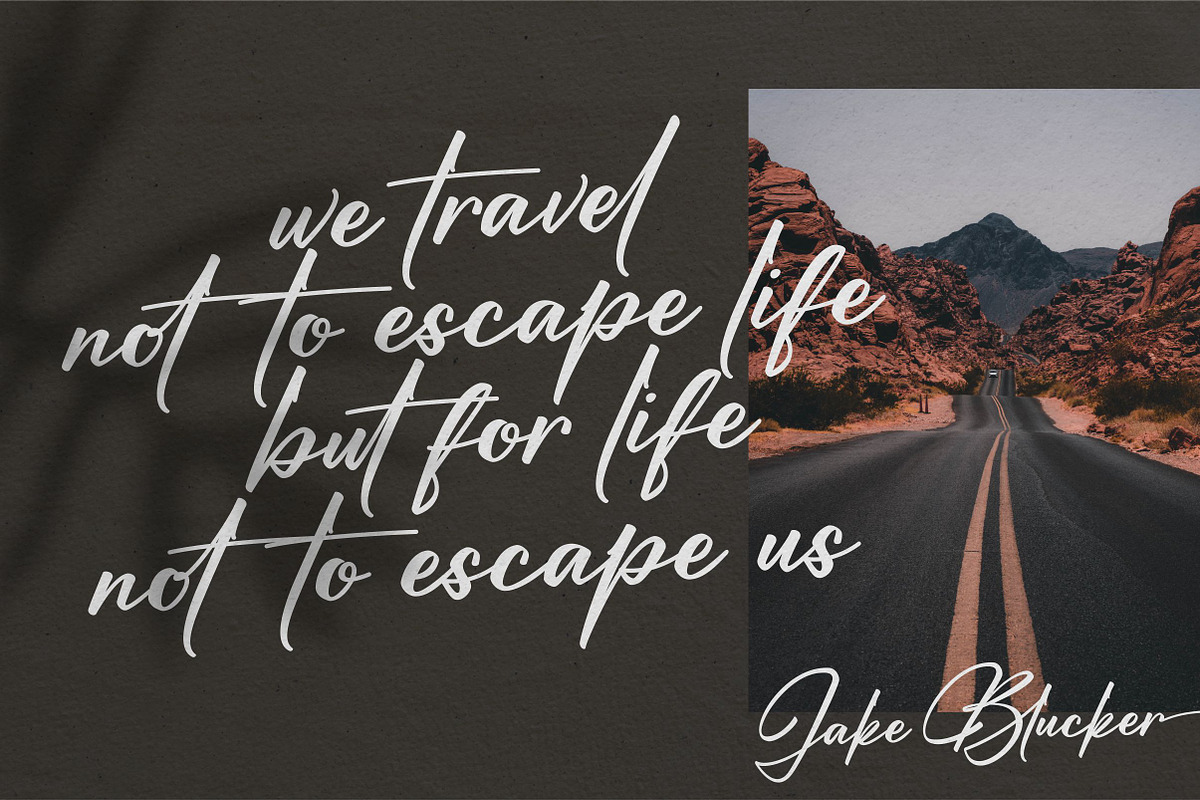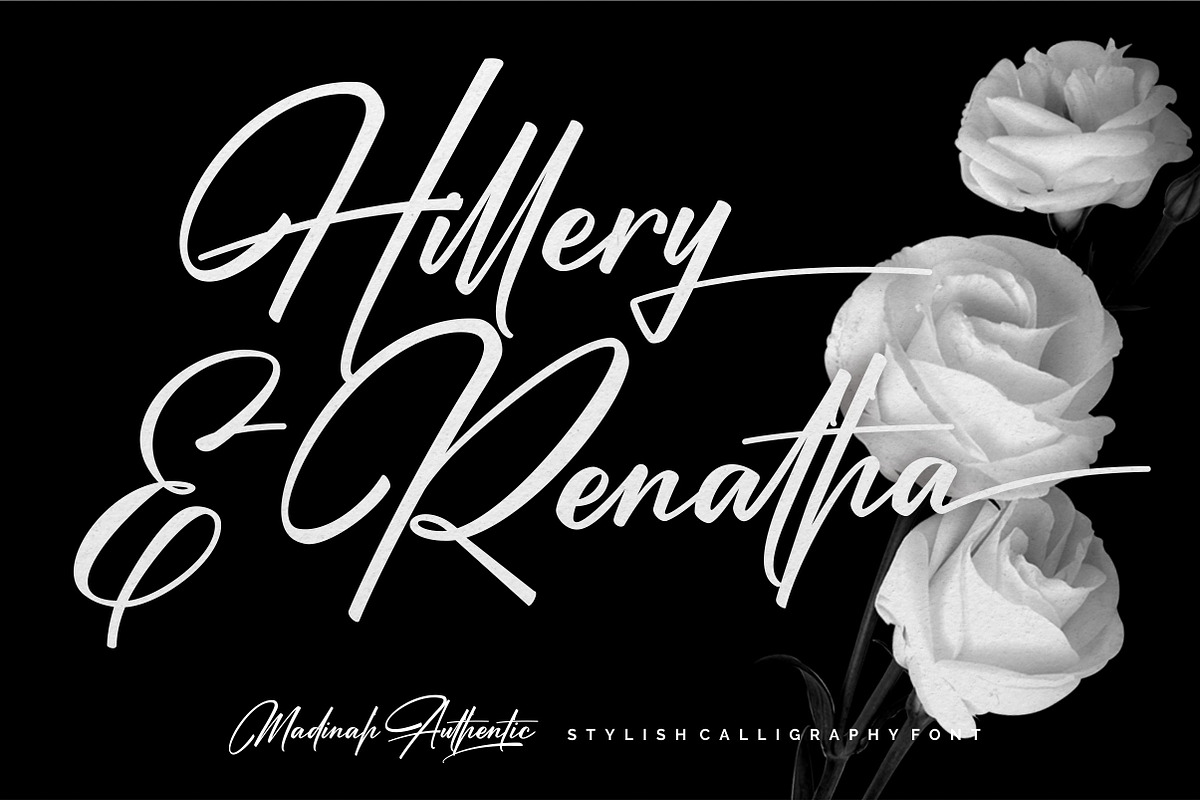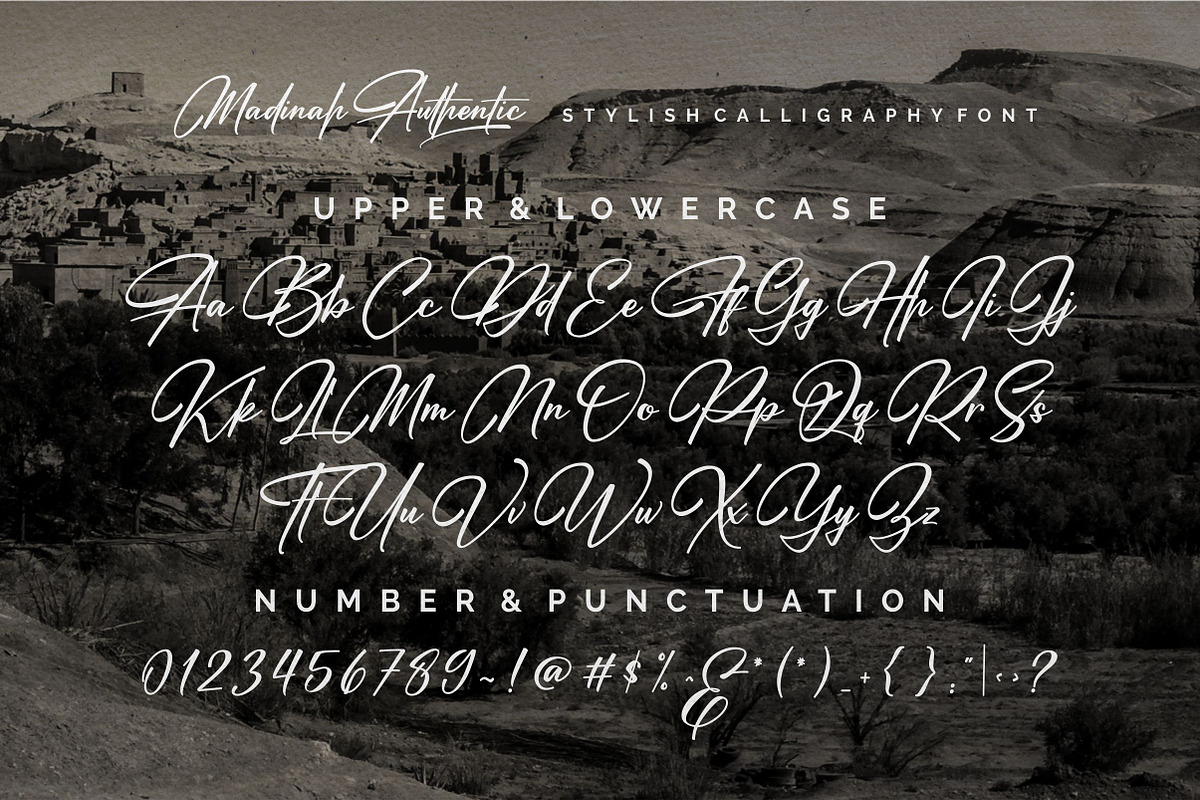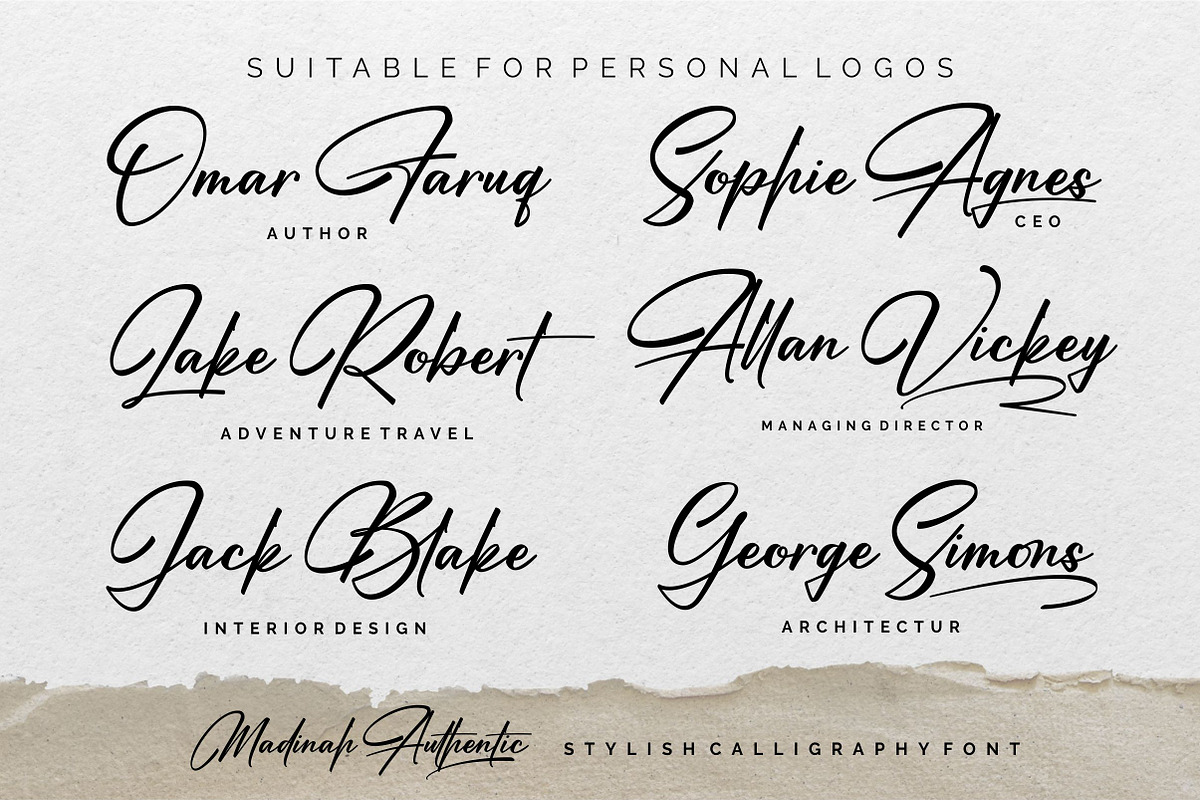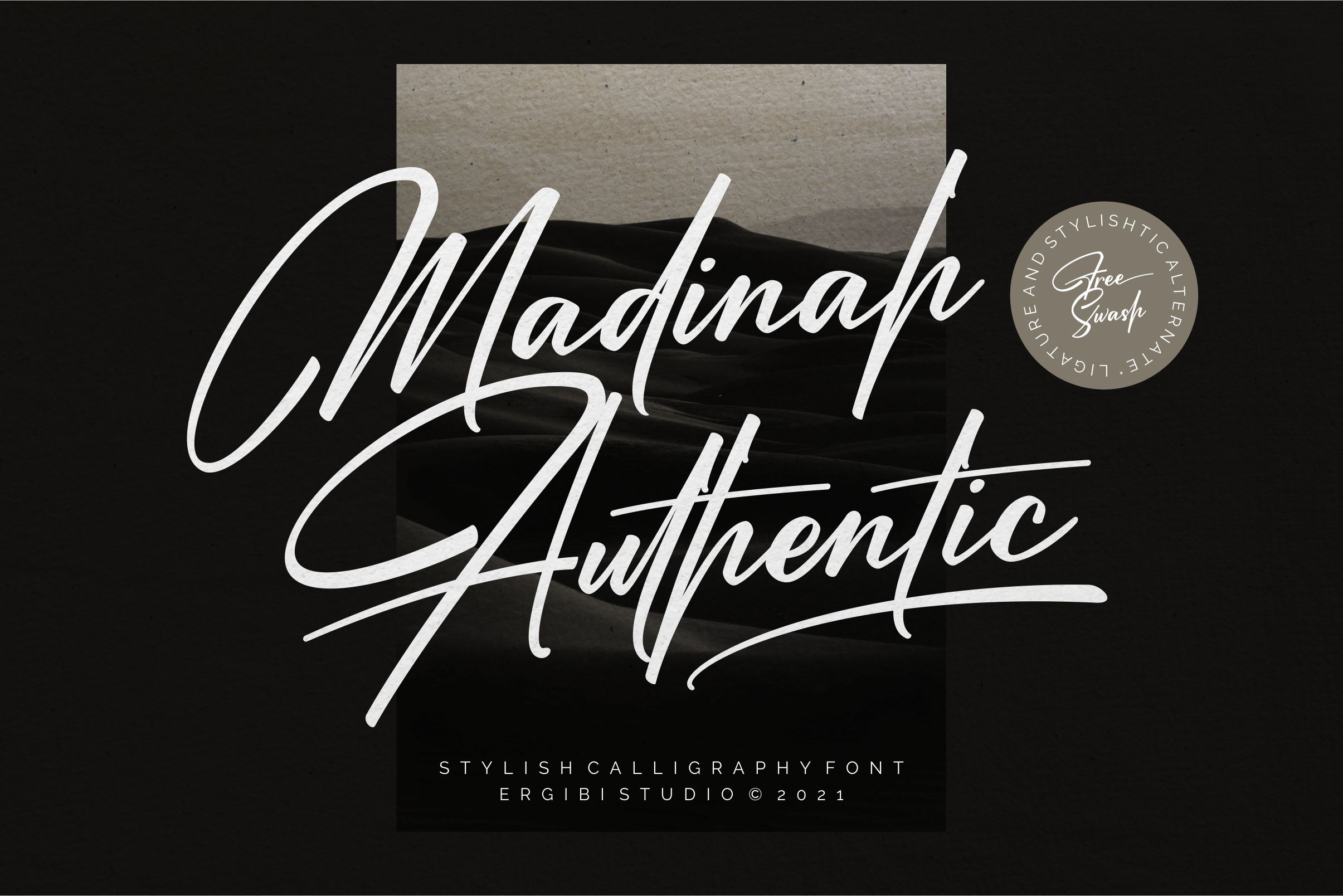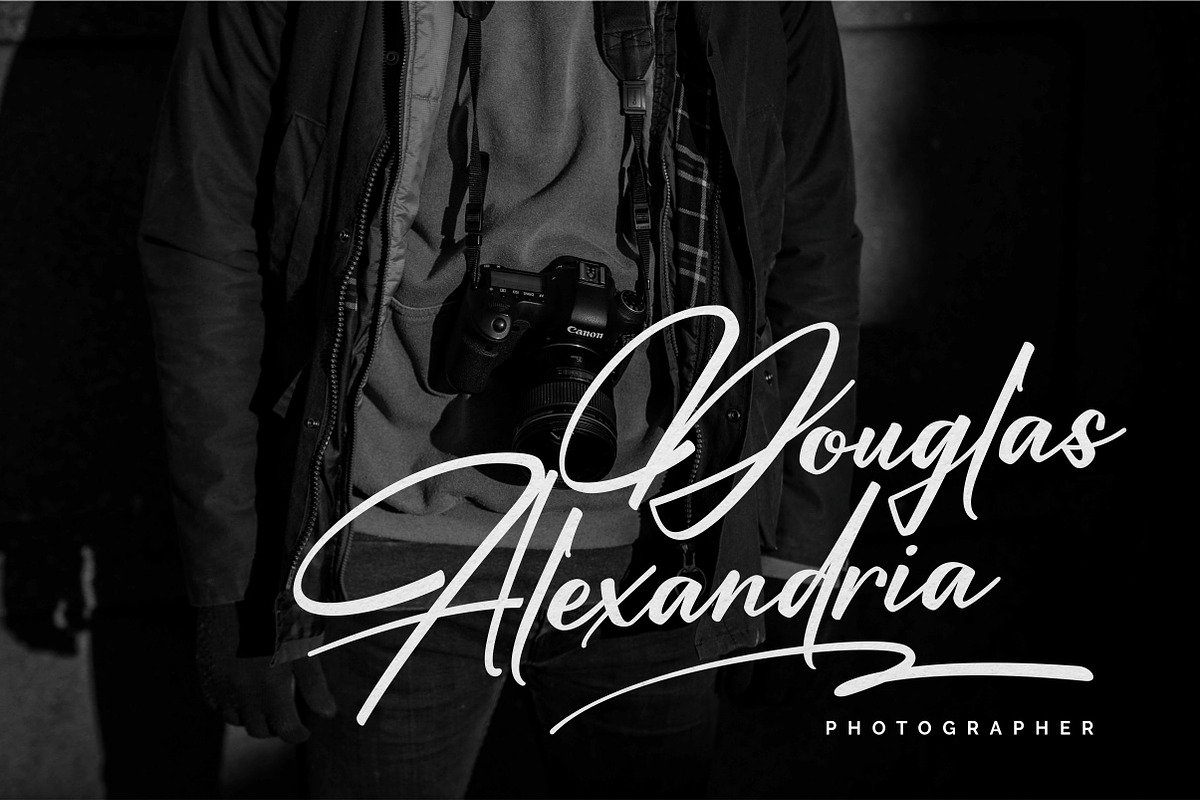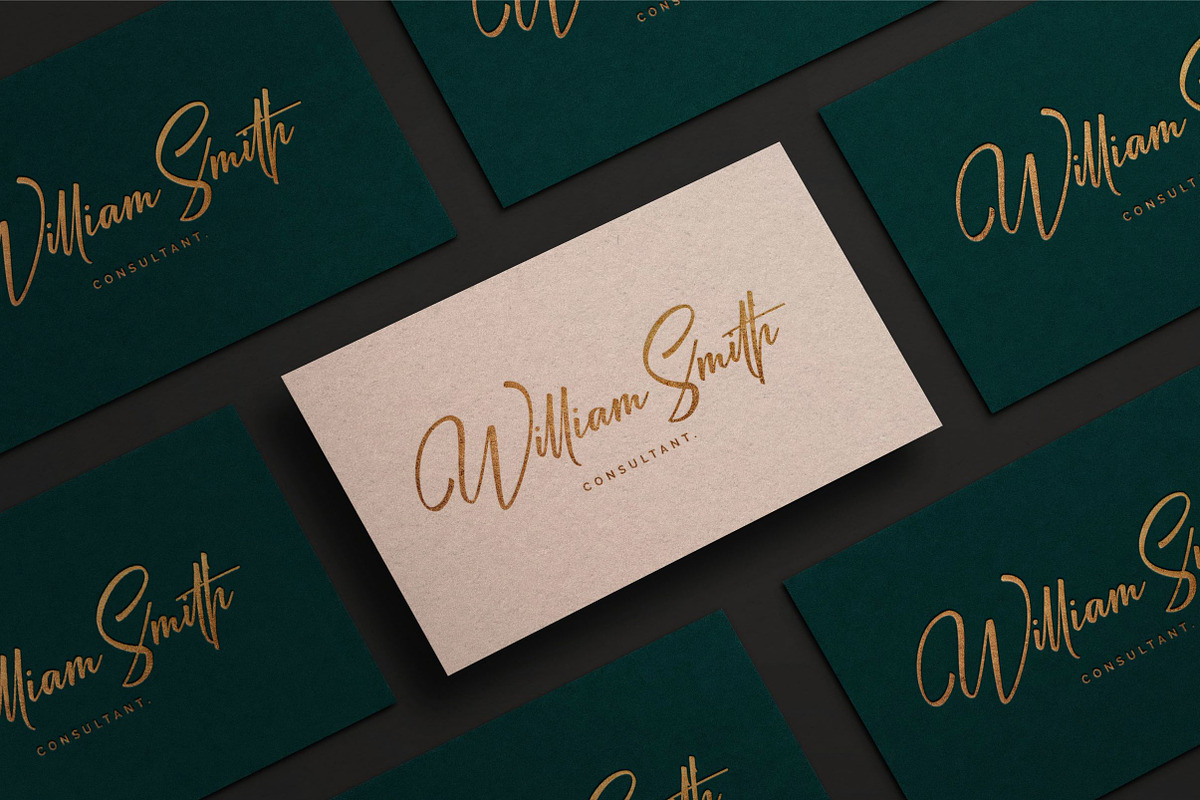
Madinah Authentic | Stylish Font
Madinah Authentic a Stylish font Inspired by elegant and branded stuffs make this font look classy and awesome in many ways to your latest project. Madinah Authentic is font is perfect for projects that look elegant like logos, wedding designs, branding, social media posts, advertisements, product packaging, product designs, labels, photography , watermarks, invitations, stationery and any project that requires handwriting tastes.
Madinah Authentic font includes over 68 ligatures to make it more natural and has a beautiful characteristic handlettering Uppercase & Lowercase, Numeral, Punctuation, Stylistic/Alternate Characters, and also Support Multi Language.